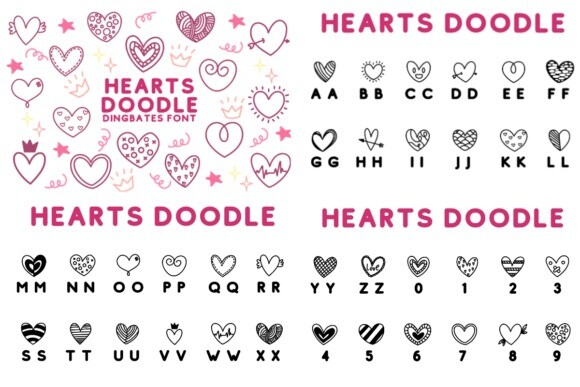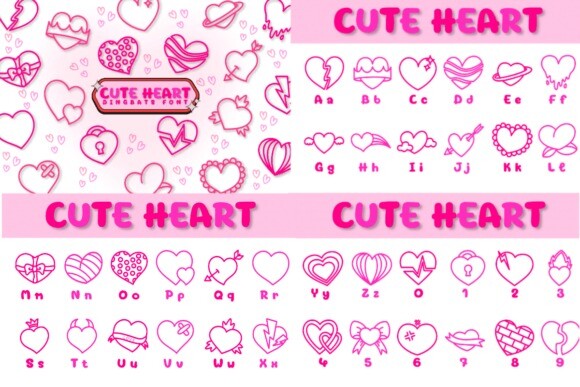
Valentine Festival Bundle Font is a collection of fun and romantic dingbat fonts. Each font is filled with cute Valentine-themed symbols like hearts, arrows, flowers, and love icons. Perfect for creating cards, decorations, and gifts to share the love!